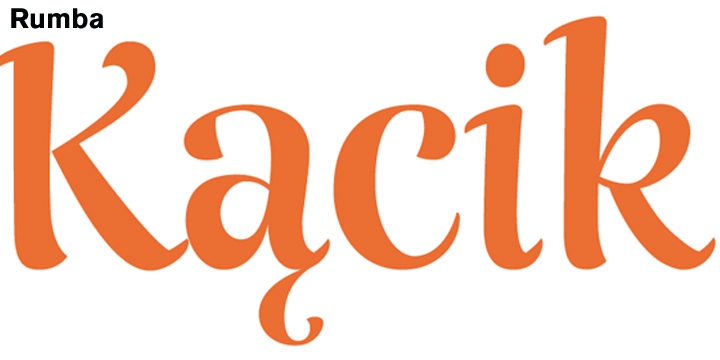
Rumba Font
Rumba Font is perfect for Latin dance studio branding, salsa club signage, Cuban restaurant menus, music festival posters, tropical event marketing, Caribbean resort advertising, Latin music album covers, and vibrant nightlife promotions.
What makes Rumba Font exciting is its rhythmic passion that captures the sultry energy and infectious beat of Latin music and dance. The font features dynamic letterforms with sensual curves and flowing movement that evoke the heat of the dance floor, passionate romance, and celebratory spirit. Its expressive character variations and Latin-inspired styling communicate rhythm, passion, and cultural vibrancy, making every message feel alive with the intoxicating energy of tropical nights and romantic encounters.
The Rumba Font family includes regular weight with uppercase and lowercase letters, numerals, punctuation marks, and special characters. Premium versions often feature stylistic alternates and decorative flourishes that enhance the passionate, Latin aesthetic perfect for entertainment and hospitality applications.
This seductive display typeface brings instant heat and cultural authenticity to any Latin-themed project. Rumba Font Free Download delivers exceptional results for businesses in the entertainment and hospitality industries seeking to communicate passion, rhythm, and Latin cultural celebration to dance and music enthusiasts.
The passionate character of Rumba Font makes it particularly valuable for dance schools, Latin music venues, and Caribbean-themed establishments. Its excellent visibility ensures event information and promotional messaging capture attention while maintaining the distinctive Latin aesthetic that appeals to audiences seeking authentic cultural experiences and romantic entertainment.
Entertainment marketers and event designers appreciate how Rumba Font effortlessly conveys rhythm and cultural heat. The font's sensual proportions and flowing details create captivating brand materials that establish connections with audiences passionate about Latin dance, music, and tropical lifestyle experiences.
The versatile passion of this typeface extends to travel marketing, beverage branding, and fashion design where Latin energy enhances brand appeal. Rumba Font Free Download provides creative professionals with an essential tool for developing memorable, rhythm-driven designs that resonate with audiences who embrace Latin culture, passionate expression, and the intoxicating energy of dance and music in their entertainment and lifestyle choices.